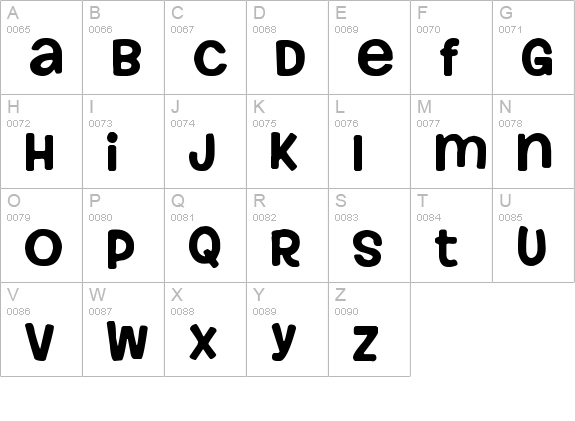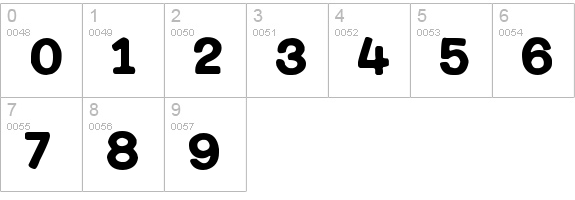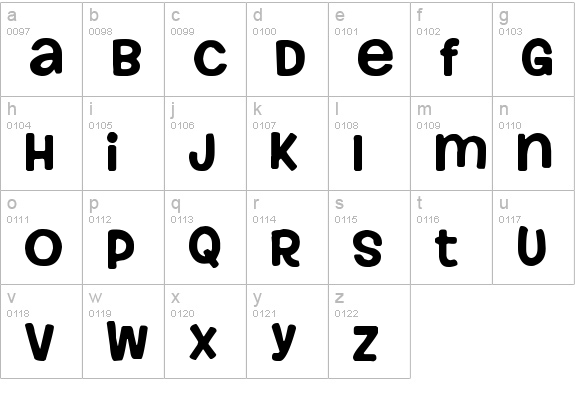
Howser Font Details
Howser font is a stunning and modern typeface that exudes elegance and sophistication. With its sleek lines and contemporary design, this font is perfect for a wide range of projects, from branding to editorial design. The versatility of Howser font makes it a must-have for any designer looking to elevate their work to the next level. What makes Howser font even more appealing is that it is completely free to download at FontsMarket.com. This means that you can easily access this high-quality font without any cost, making it a valuable addition to your font library. Don't miss out on the opportunity to enhance your designs with the beautiful and stylish Howser font, available for free at FontsMarket.com.